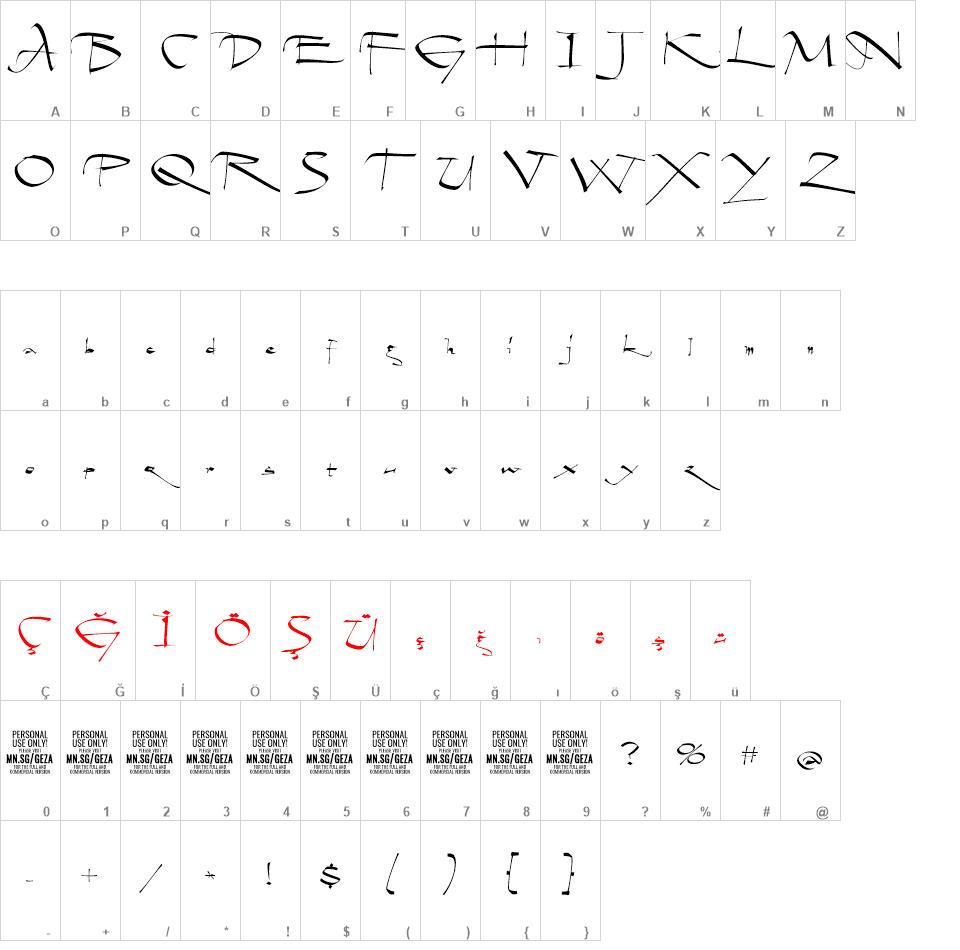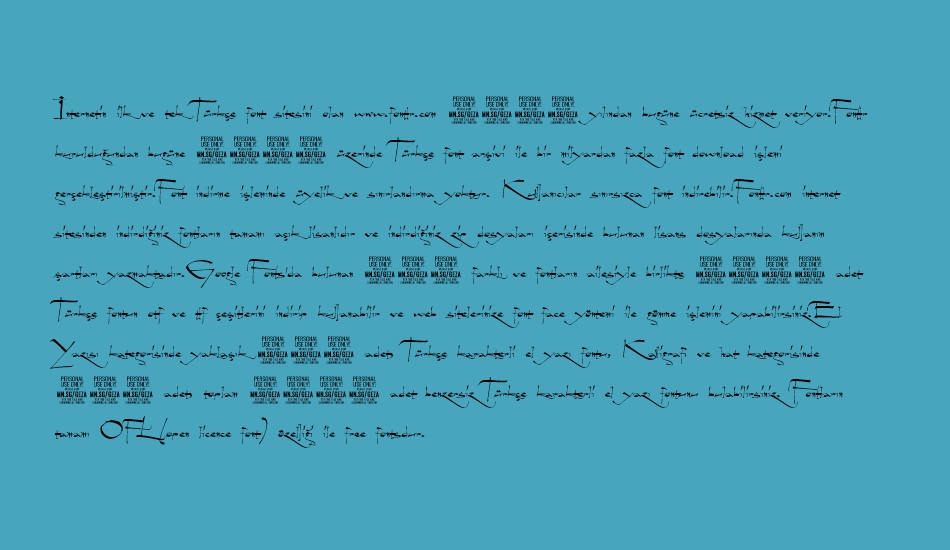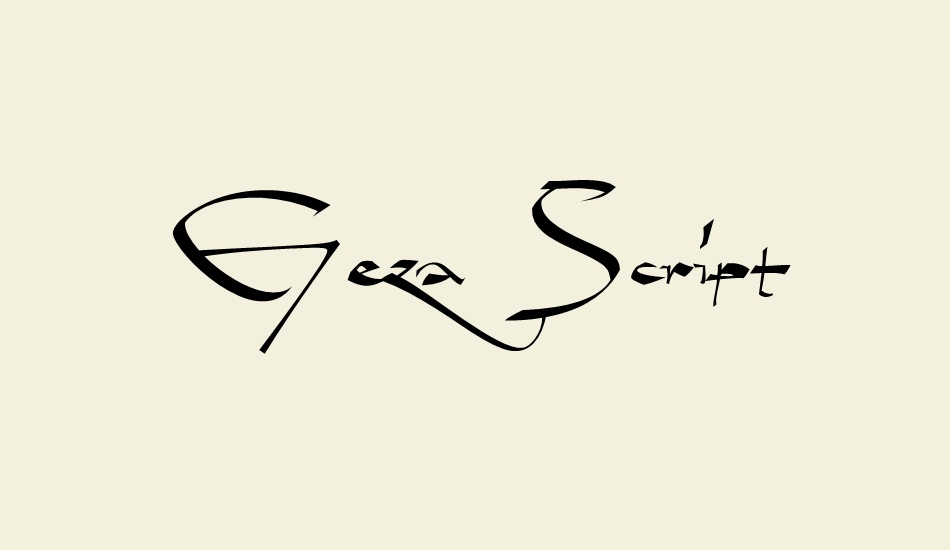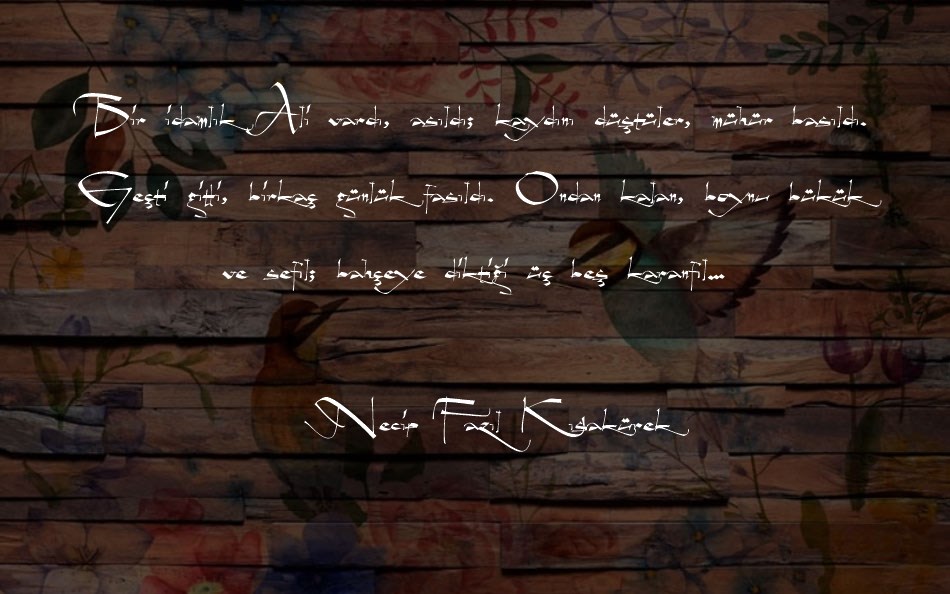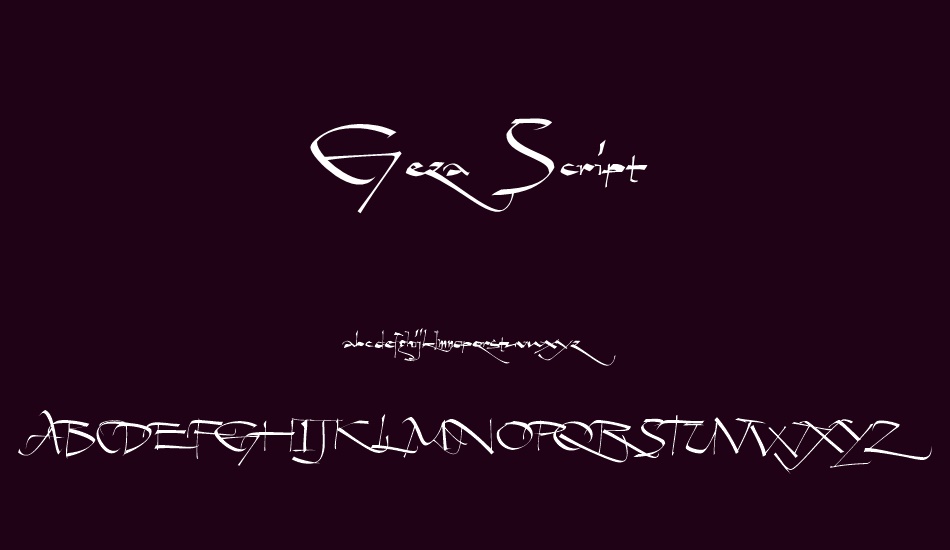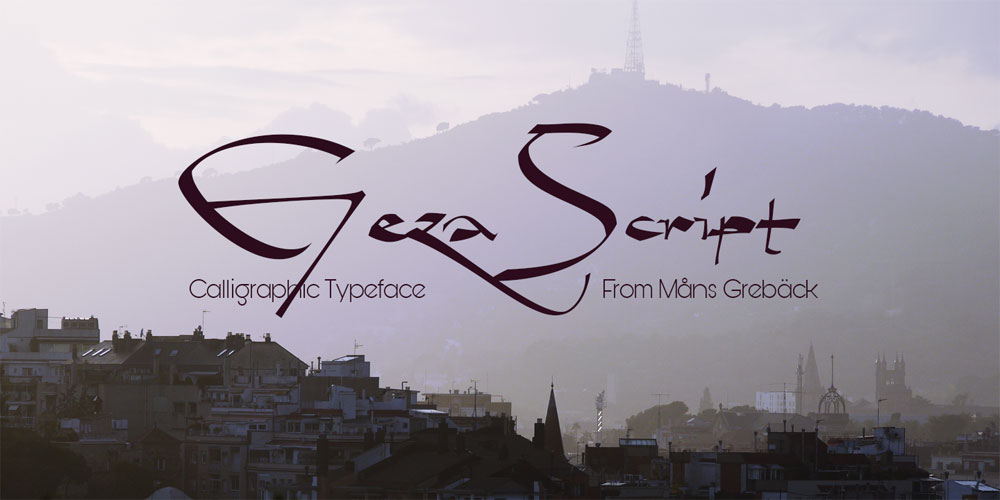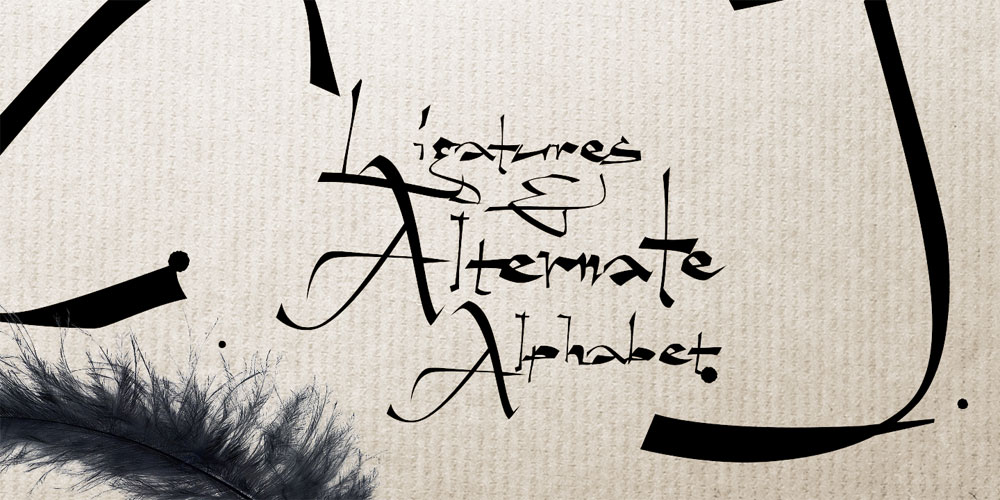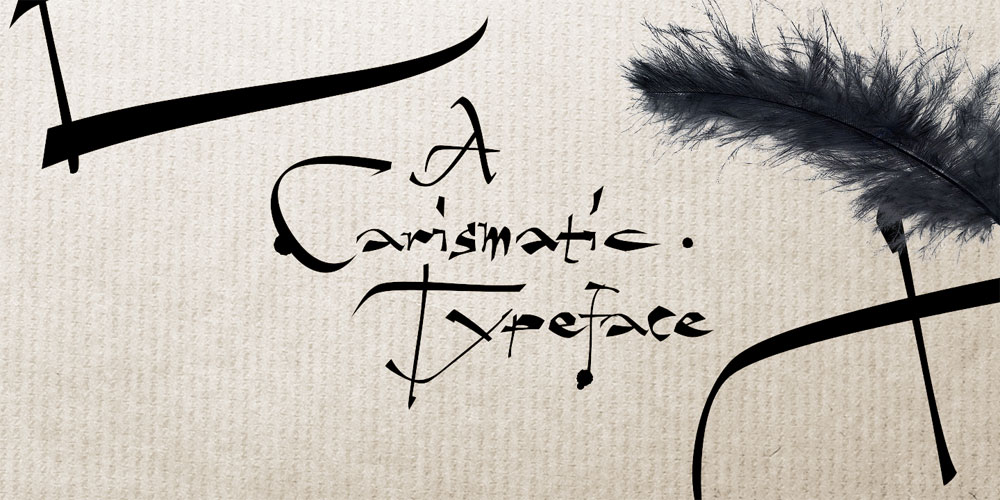
Geza Script font
Geza Script is a wild, calligraphic typeface.
It has a foreign look that is hard to put a name on, it could
be seen as Eastern inspired or as a forgotten script from
the European 1500's.
Use Geza Script in a urbane logo or graphic project you want to
emit confidence.
The font is created by M?ns Greb?ck and contains an alternate
alphabet, ligatures and support for hundreds of languages.